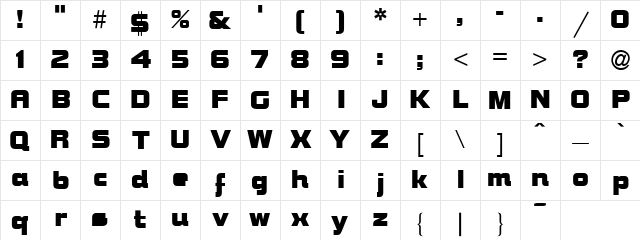
Brock Bold
Design Context for Brock
Brock is a composed and adaptable typeface that performs quietly and consistently across a wide range of design contexts. Its bold stroke weight gives it real presence on the page.